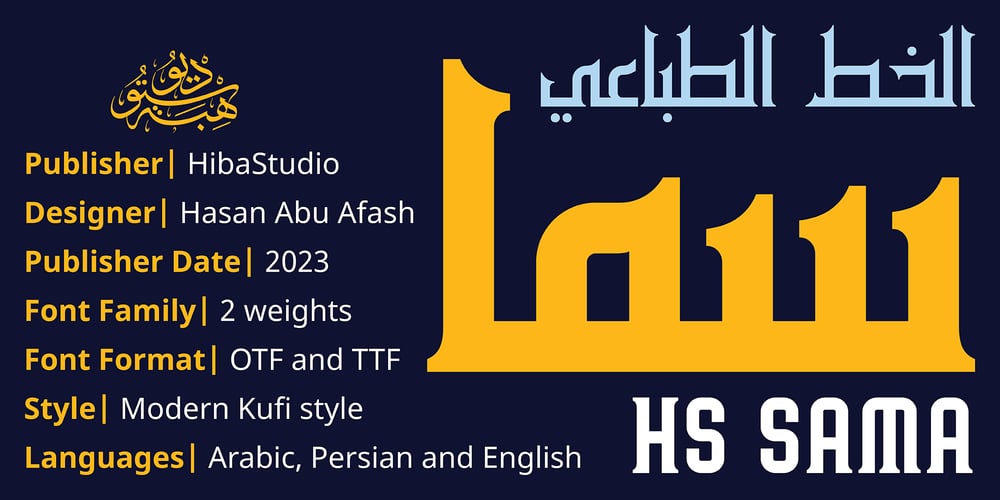
HS Sama
HS Sama font
HS Sama Font Family was designed by Hasan Abu Afash and published by Hiba Studio. HS Sama contains 2 styles and family package options. HS Sama is an Arabic display typeface designed for book titles, creative graphic projects, and modern logos. It falls under the “titles” category and is based on the rules of Fatmic Kufi calligraphy, featuring a beautiful idea and special dimensions that maintain the beauty of the Arabic font and its fixed rates.With support for Arabic, Persian, and English, this font comes in two weights (Regular and Bold) that can be added to the library of contemporary Arabic Kufic fonts, meeting the needs of various designs for all tastes. Its versatile design makes it a great addition for those looking for a modern Arabic font with a unique touch.